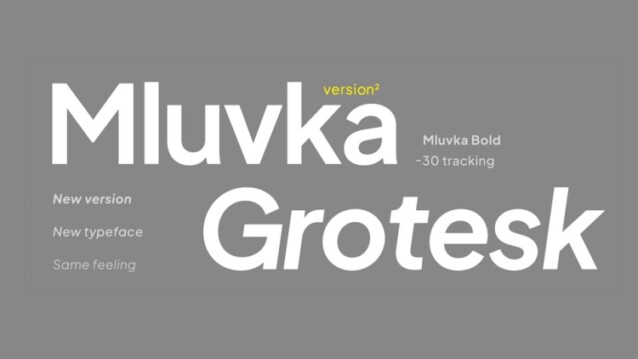
Mluvka Grotesk Font is a simple, clean typeface with a modern design and remarkable appearance. Mluvka has tall x-height as Jakarta but it’s easy to change tracking for improving readability. This is a perfect choice for creating logotypes, branding, headlines, corporate identities, and marketing materials for web, digital & print alike.